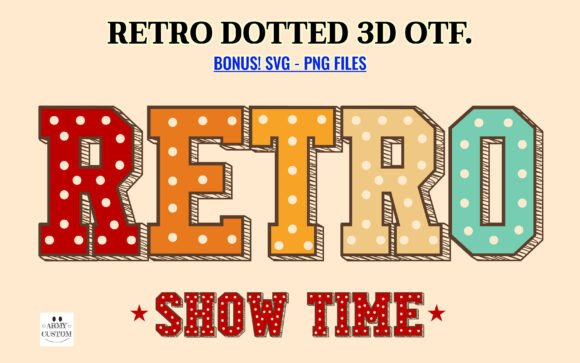
Experience the Vibrant Essence of Campus Life with Colorful Varsity Retro Dotted 3D Font
Are you looking for a font that captures the dynamic fusion of athleticism and intellectual pursuits in a distinct university-style design? Look no further than the Colorful Varsity Retro Dotted 3D font. This premium font is designed to evoke the vibrant and inspiring essence of campus life, making it a superb choice for creating powerful statements.
What is Colorful Varsity Retro Dotted 3D Font?
Colorful Varsity Retro Dotted 3D is a unique and visually attractive font that combines the classic look of varsity fonts with a modern, 3D effect. The font features a dotted design that gives it a textured, dimensional edge, setting it apart from other fonts. The result is a font that is both nostalgic and cutting-edge, perfect for capturing the spirit of campus life.
The Inspiration Behind Colorful Varsity Retro Dotted 3D Font
The inspiration behind Colorful Varsity Retro Dotted 3D font is the vibrant and dynamic world of campus life. The font is designed to evoke the sense of community, competition, and intellectual curiosity that defines university life. Whether you’re designing a logo, poster, or social media graphic, this font is sure to capture the essence of campus life and inspire your audience.
Key Features of Colorful Varsity Retro Dotted 3D Font
- Unique Dotted Design: The font features a distinctive dotted effect that gives it a textured, dimensional edge.
- 3D Effect: The font has a 3D effect that adds depth and visual interest to your designs.
- Multicolor: The font comes in a range of colors, allowing you to choose the perfect hue for your design.
- Varsity Style: The font is inspired by classic varsity fonts, giving it a nostalgic, retro feel.
Uses of Colorful Varsity Retro Dotted 3D Font
Colorful Varsity Retro Dotted 3D font is a versatile font that can be used for a wide range of design projects, including:
- Logos and Branding: The font is perfect for creating logos and branding materials that need to capture the spirit of campus life.
- Posters and Flyers: The font is ideal for creating eye-catching posters and flyers that promote events, clubs, or organizations.
- Social Media Graphics: The font can be used to create engaging social media graphics that showcase your personality or brand.
- Merchandise: The font is great for creating merchandise, such as t-shirts, hats, or water bottles, that showcase your school spirit.
Benefits of Using Colorful Varsity Retro Dotted 3D Font
Using Colorful Varsity Retro Dotted 3D font offers a range of benefits, including:
- Unique and Memorable: The font is unique and memorable, making it perfect for creating designs that stand out.
- Versatile: The font can be used for a wide range of design projects, from logos to social media graphics.
- Easy to Read: The font is easy to read, even at small sizes, making it perfect for use on a variety of materials.
- Scalable: The font is scalable, allowing you to use it for both large and small design projects.
Tips for Using Colorful Varsity Retro Dotted 3D Font
Here are some tips for using Colorful Varsity Retro Dotted 3D font:
- Use it for Headlines: The font is perfect for use in headlines, where its bold and eye-catching design can really make an impact.
- Pair it with Other Fonts: The font can be paired with other fonts to create a unique and visually appealing design.
- Experiment with Colors: The font comes in a range of colors, so don’t be afraid to experiment and find the perfect hue for your design.
- Use it for Emotive Projects: The font is perfect for use on projects that require an emotional response, such as posters or social media graphics.
| Font Name | Varsity Retro Dotted 3d Font |
Colorful Varsity Retro Dotted 3D font is a unique and versatile font that captures the vibrant and inspiring essence of campus life. With its distinctive dotted design, 3D effect, and range of colors, this font is perfect for creating powerful statements that showcase your personality or brand. Whether you’re designing a logo, poster, or social media graphic, Colorful Varsity Retro Dotted 3D font is a superb choice.